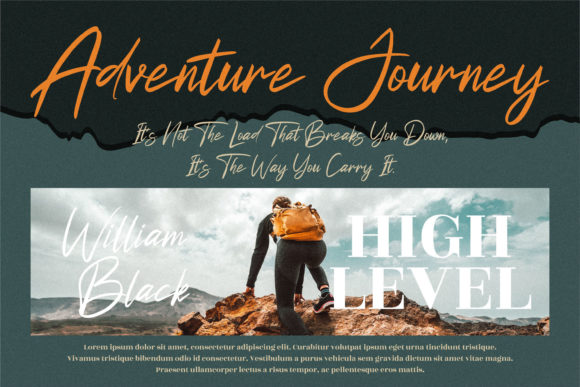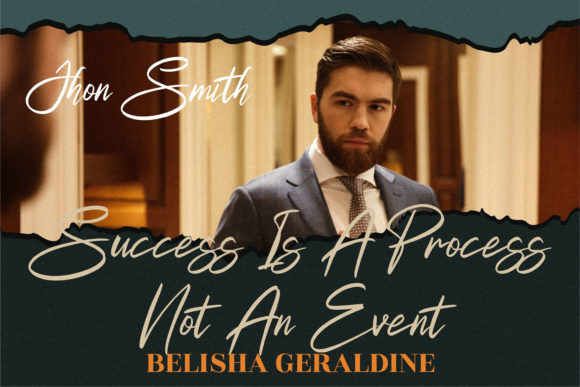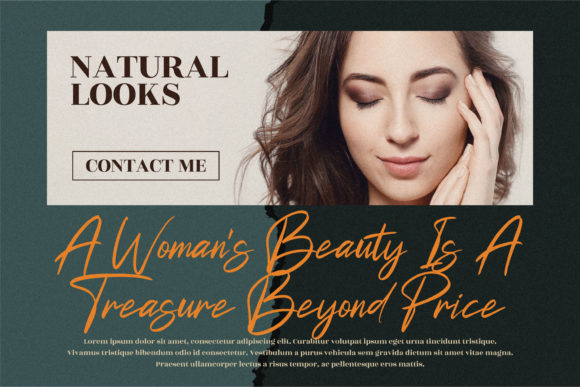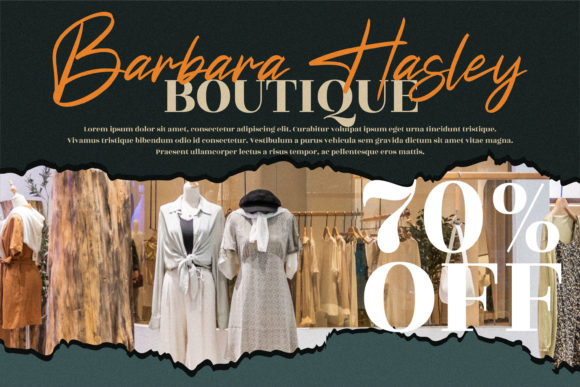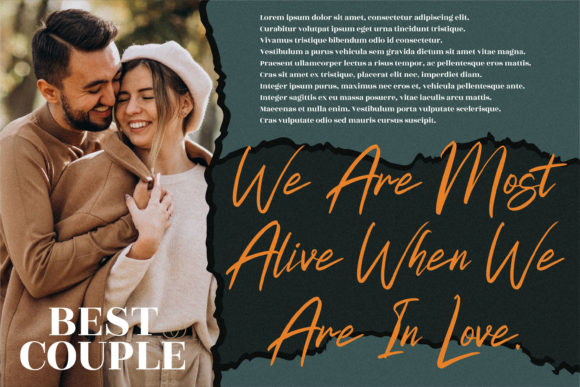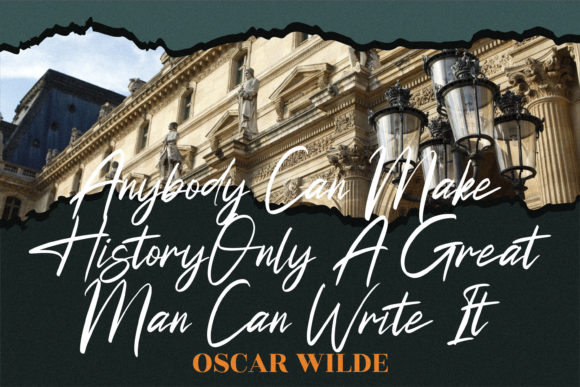
Introduction to Futuristic Signature Font
Futuristic Signature is a beautiful and refined script font.
It has a classy, elegant and modern look that can be used for logos, branding, invitations, stationery, wedding designs, social media posts, and much more .
Key Features of Futuristic Signature Font
Why Choose Futuristic Signature Font?
Futuristic Signature Font offers exceptional quality and versatility, making it a valuable addition to your design toolkit. Whether you’re creating for personal projects or commercial use, Futuristic Signature Font delivers professional results.